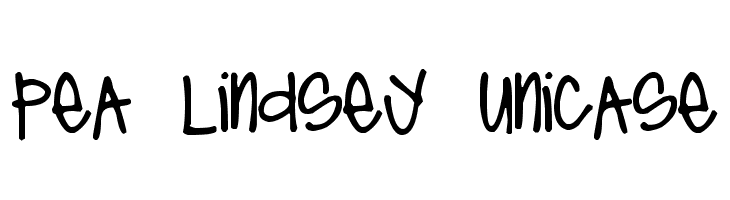
A playful, hand-drawn font with tall, narrow characters and a whimsical style.
A playful, hand-drawn font with irregular strokes and a whimsical style.